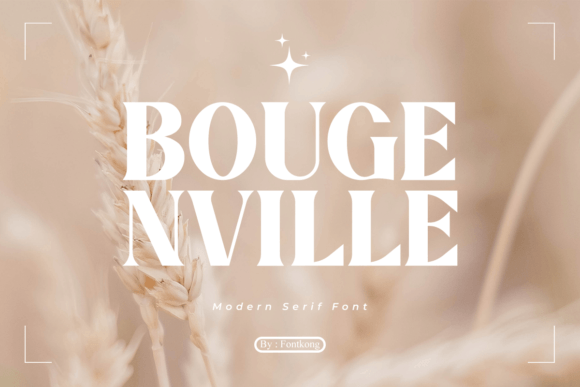
Unleash the Sophistication: Discover the Bougenville Font
There’s nothing quite like the thrill of creating a new design, pouring over font options, and finally stumbling upon the perfect one. For many designers, that moment is a game-changer. It’s when the entire project starts to come together, and you know you’ve made the right choice. For me, that moment came when I discovered the Bougenville Font. With its elegant curves and refined details, this beautifully crafted typeface is the epitome of sophistication.
Designed for high-end branding, exquisite invitations, and refined editorial designs, the Bougenville Font is a valuable addition to any designer’s toolkit. Its timeless beauty and modern versatility make it perfect for both print and digital media. Whether you’re looking to elevate your creative work or add a touch of class to your designs, the Bougenville Font is the perfect choice.
- Unique Characteristics: The Bougenville Font features elegant, flowing lines and intricate details, giving it a distinctive and sophisticated look.
Bougenville Font Review
The Bougenville Font is a unique and elegant font that can add a touch of sophistication to any design project. Here are some of its strengths: ✨
- Highly legible: The Bougenville Font is designed to be clear and easy to read, making it perfect for body text and long-form content.
- Beautiful curves: The font’s rounded shapes and flowing lines create a sense of elegance and refinement.
- Good for headlines: The Bougenville Font’s larger sizes look stunning, making it a great choice for headings and titles.
- Limited flexibility: The Bougenville Font is quite formal and may not be the best choice for more casual or playful designs.
- Not ideal for small text: The font’s curves can become difficult to read when used in smaller sizes.
Overall, I think the Bougenville Font is a solid choice for designers looking to add a touch of sophistication to their projects. While it may not be the most versatile font, it’s perfect for specific use cases and can really elevate the look and feel of a design.
Some common use cases for Bougenville Font include:
– Luxury brand logos and marketing materials
– High-end product packaging and labels
– Formal event invitations and announcements
Tips for getting the most out of Bougenville Font include:
– Using it sparingly to create a sense of luxury and sophistication
– Pairing it with simple, elegant graphics and design elements
– Experimenting with different font sizes and styles to add visual interest
– Using it in conjunction with other high-end fonts to create a cohesive look